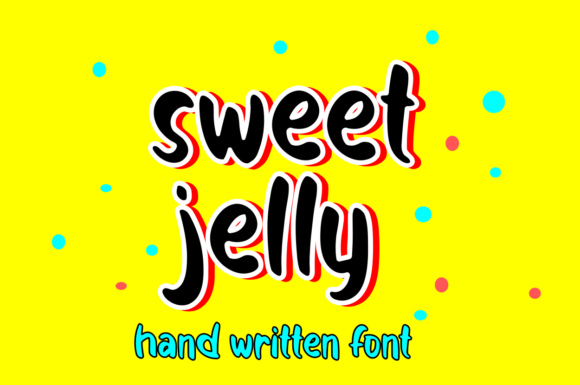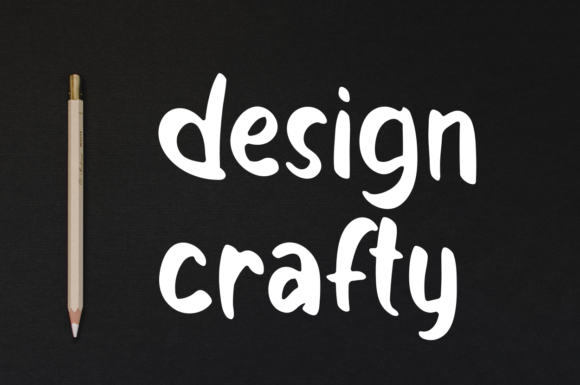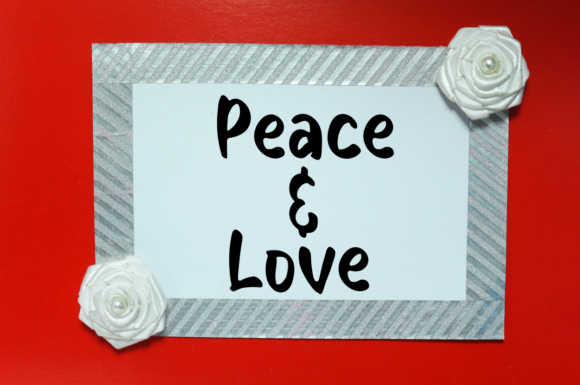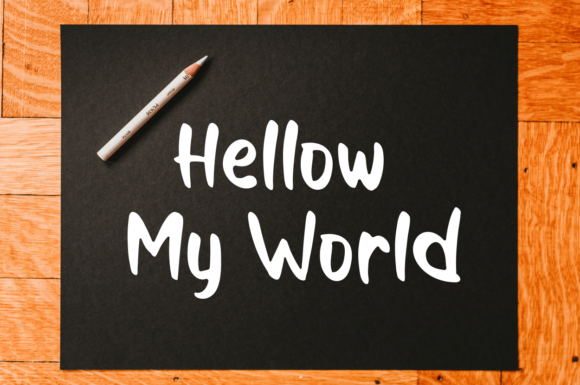
Sweet Jelly Font
About Sweet Jelly Font
Sweet Jelly is a font that exudes cuteness, readability, and versatility in its handwritten style. With its adorable and friendly vibe, this font is perfect for various creative projects, whether it’s crafting, digital designing, presentations, or greeting cards making.
The cute and readable handwritten style of Sweet Jelly brings a sense of joy and charm to your creations. Each letter carries the artistic and approachable touch of handwriting, making your work stand out with a touch of authentic cuteness and allure.
With Sweet Jelly as your creative tool, you have the freedom to explore a wide range of design ideas. Whether you’re working on crafting projects, digital designs, presentations, or greeting cards, this font adapts effortlessly to bring a sense of versatility and warmth to your work.
Embrace the cute and readable vibe of Sweet Jelly and witness how it transforms your designs into delightful works of art. Its friendly appearance adds a touch of authenticity, making your creations truly captivating and filled with a sense of joy and creativity.
Discover the joy of creating with Sweet Jelly as your trusted companion. Let its handwritten appearance be the key to unlocking your creativity and infusing your work with a sense of cuteness and approachability.
Whether you’re designing for personal projects or professional endeavors, Sweet Jelly is the font that adds that extra touch of flair and sweetness to your creations. Embrace Sweet Jelly confidently, and notice how it enhances the appeal and impact of your designs, making them truly special and unforgettable.
Let Sweet Jelly be the font that sparks your inspiration and brings a cute and friendly touch to your designs. Experience the magic of Sweet Jelly and witness how it elevates your creative projects, making them truly delightful and filled with a sense of warmth and allure.